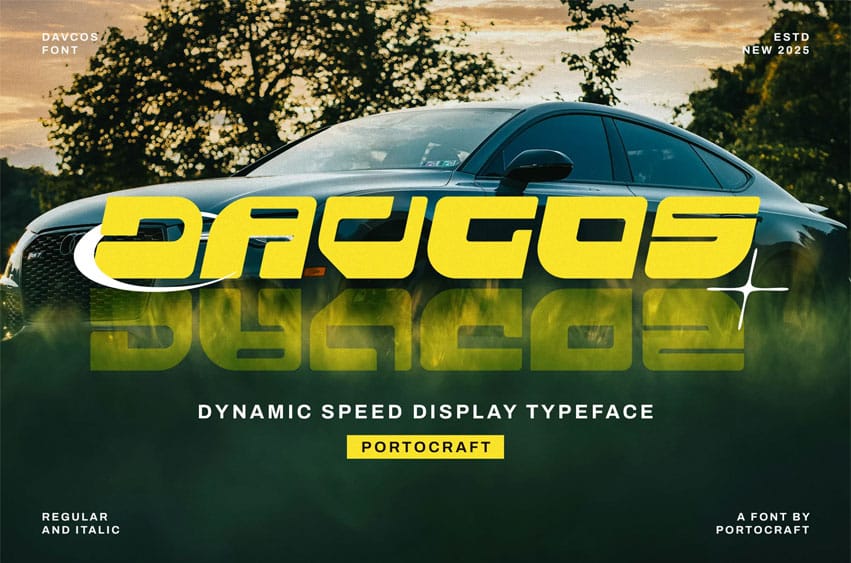
Davcos Font is a bold and futuristic display typeface designed for speed, energy, and modern aesthetics. Its dynamic curves and sharp edges make it perfect for automotive branding, sports posters, gaming titles, technology themes, and standouts. Available in Regular and Italic, Davcos delivers a powerful presence in every design.
Whether you’re working on racing graphics, esports covers, or sleek product packaging, Davcos ensures your message is fast, loud, and unforgettable.
- Unique Letterforms